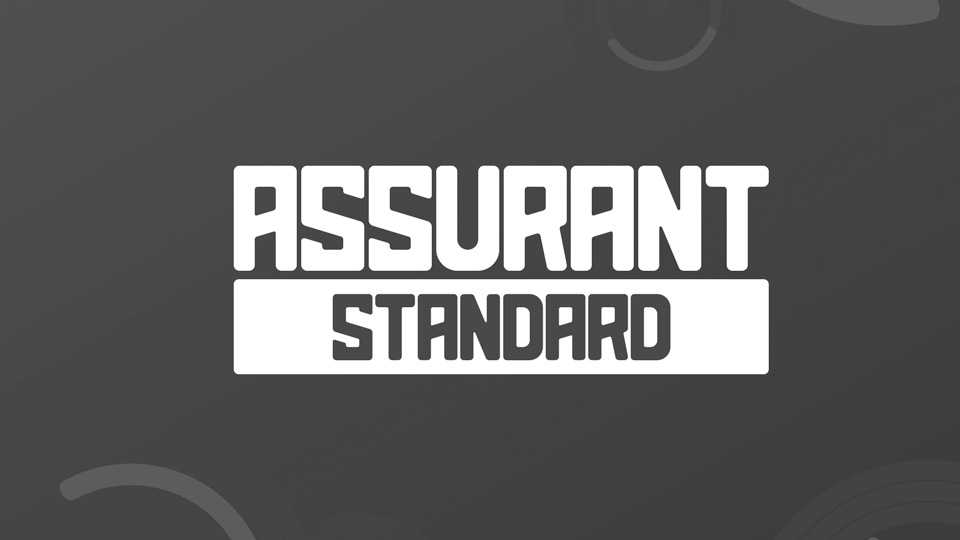
Download Assurant Standard font, a sans serif family with own personality, combining straight forms and smooth corners. It featured in Regular and Italic styles.